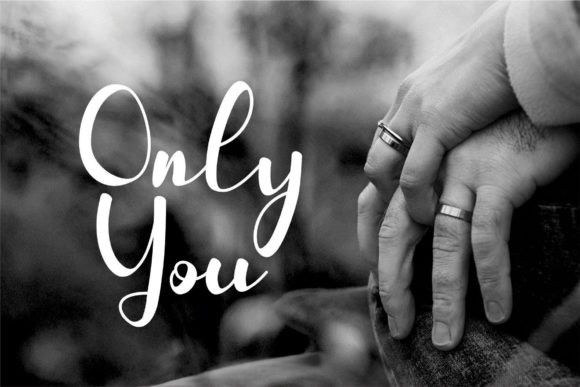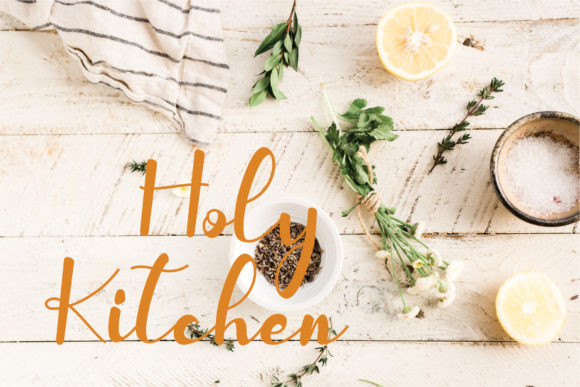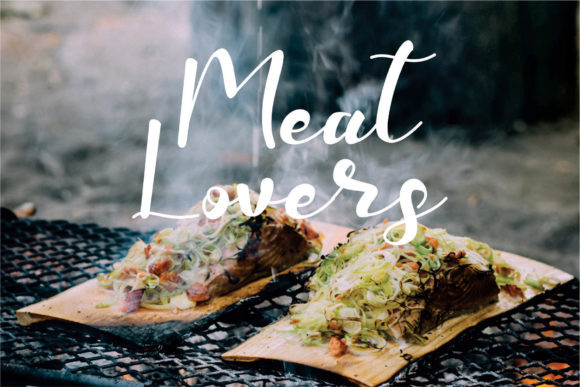
Belova Font
Belova is a timeless and delicate script font. It features beautiful multilingual, ligatures, uppercases and lowercases. It is perfect for creating outstanding greeting carts, romantic weeding invitations, logos, spectacular moving images or anything else that crosses your imagination!